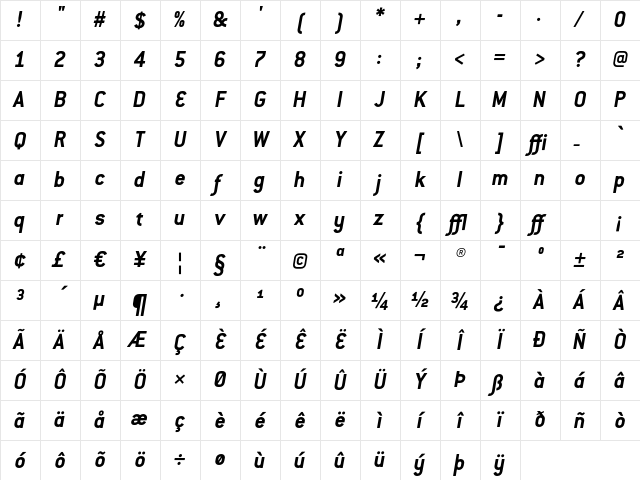
ConduitITC BoldItalic Free Font
ConduitITC BoldItalic
Design Context for ConduitITC
ConduitITC is a composed and adaptable typeface that performs quietly and consistently across a wide range of design contexts. The slanted form adds forward momentum and visual energy. Its bold stroke weight gives it real presence on the page. Its narrow stance lets it pack a punch even in space-constrained designs.
Pro Tip: Use ConduitITC for emphasis, pull quotes, and subheadings where its slanted energy can add rhythm to the layout.